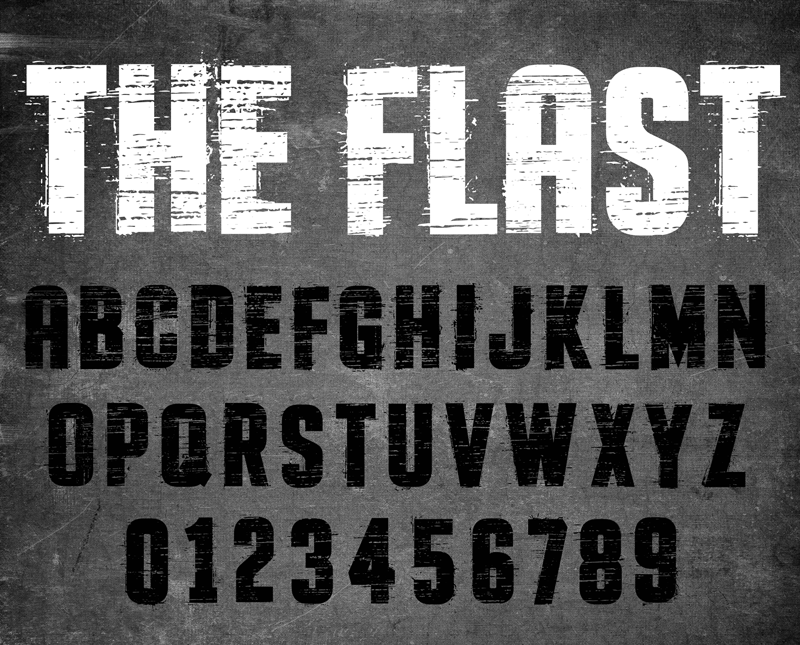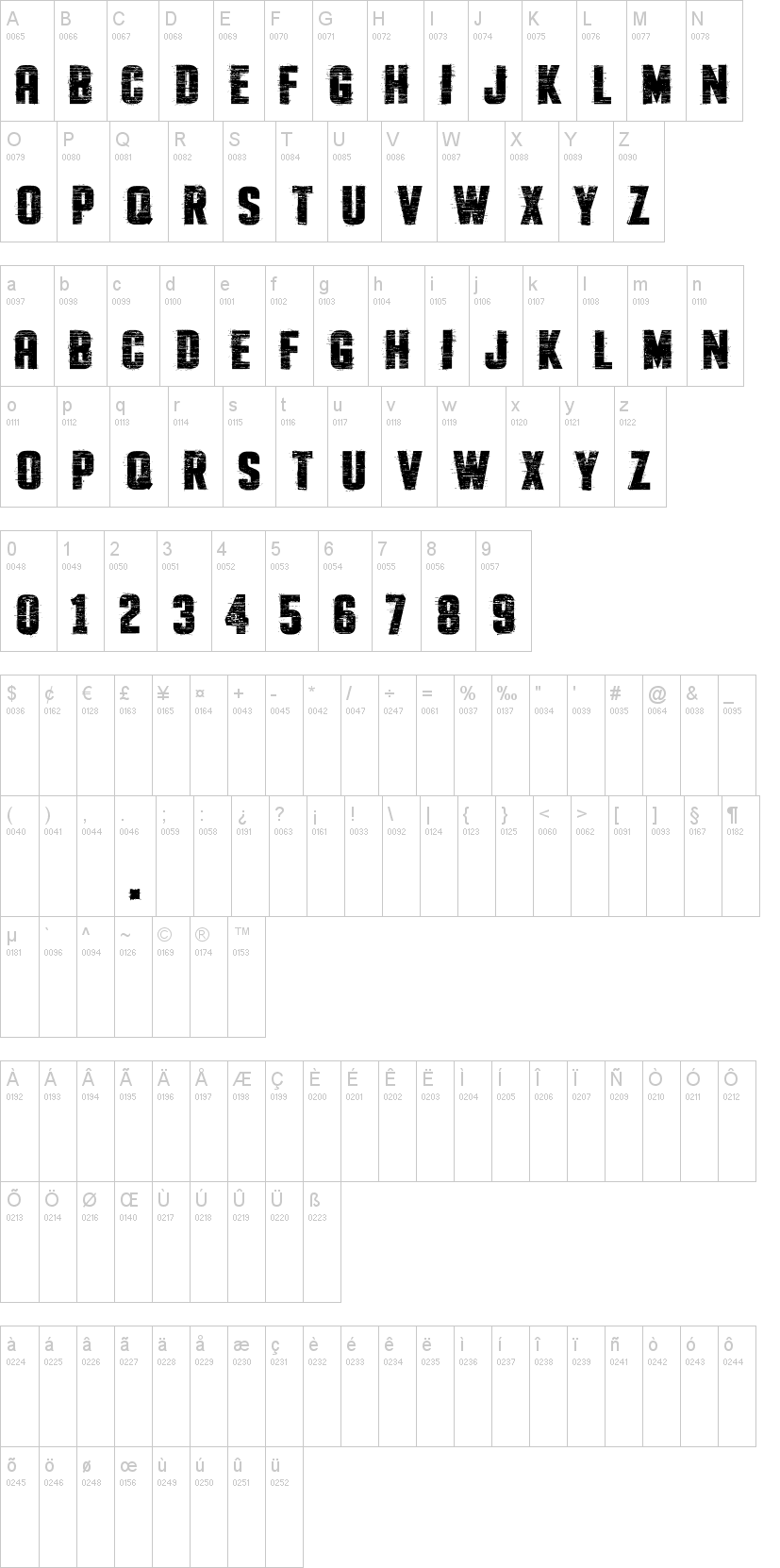
The Flast
Note of the authorFont: The Flash
Type: Bold and Distorted Typeface
- Bold and distorted style typeface with unique touch of texture
- Perfect for rustic theme and grunge works
- Available in uppercase and lowercase